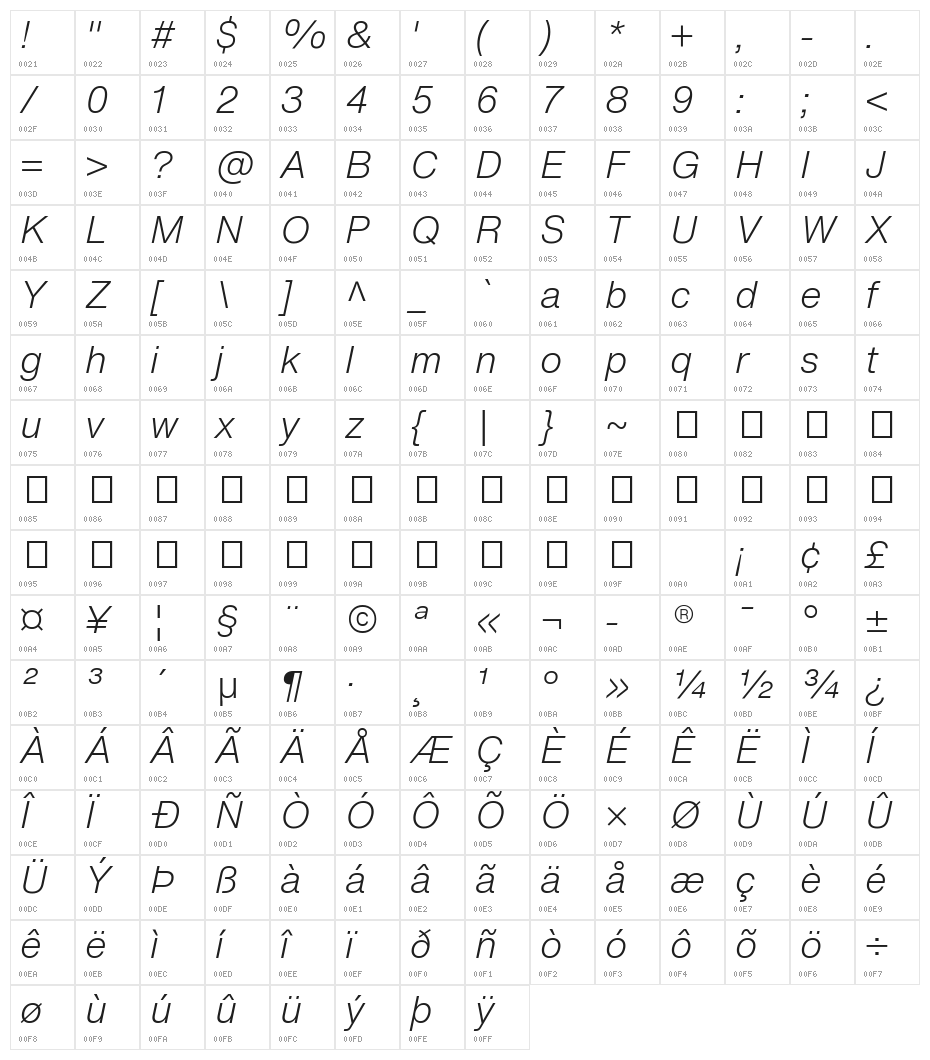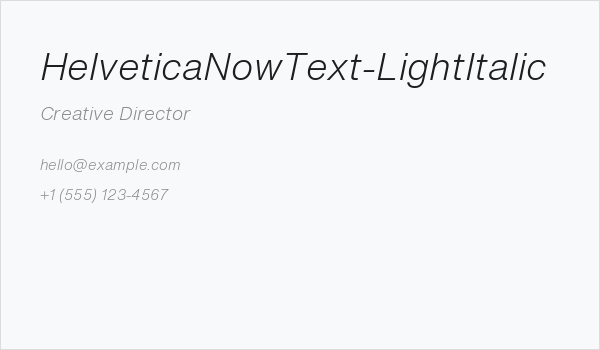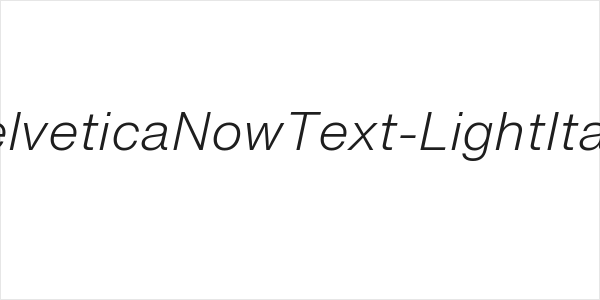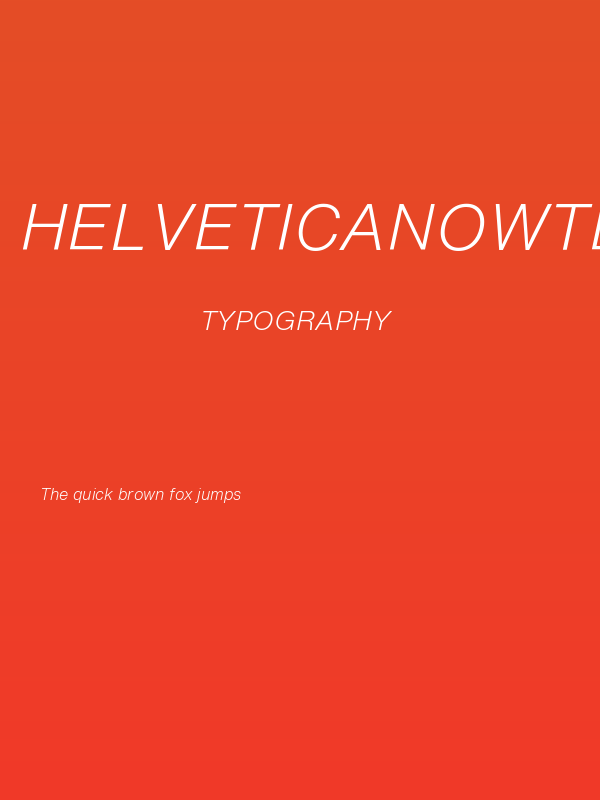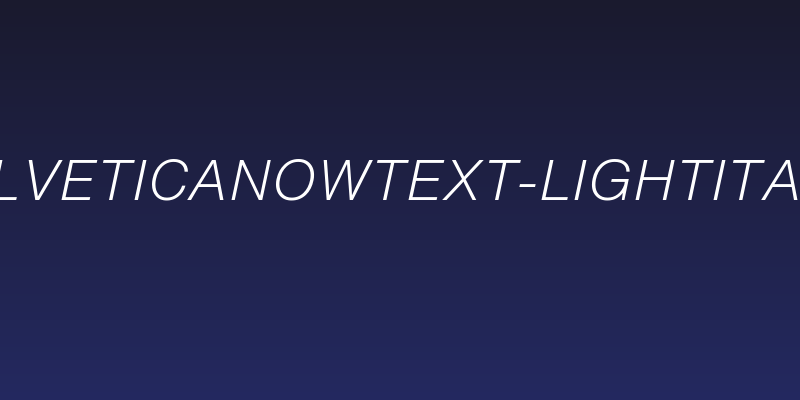
HelveticaNowText-LightItalic Font
HelveticaNowText-LightItalic Description
This font features a clean and modern design with a light weight and italic style. The characters are sleek and slightly slanted, giving a sense of elegance and fluidity. The sans-serif nature ensures a minimalist appearance, making it highly readable and versatile. The strokes are consistent and smooth, with a low contrast between thick and thin lines, contributing to its contemporary look. The spacing between characters is normal, allowing for clear legibility across various sizes. This font is ideal for projects that require a sophisticated yet approachable aesthetic.